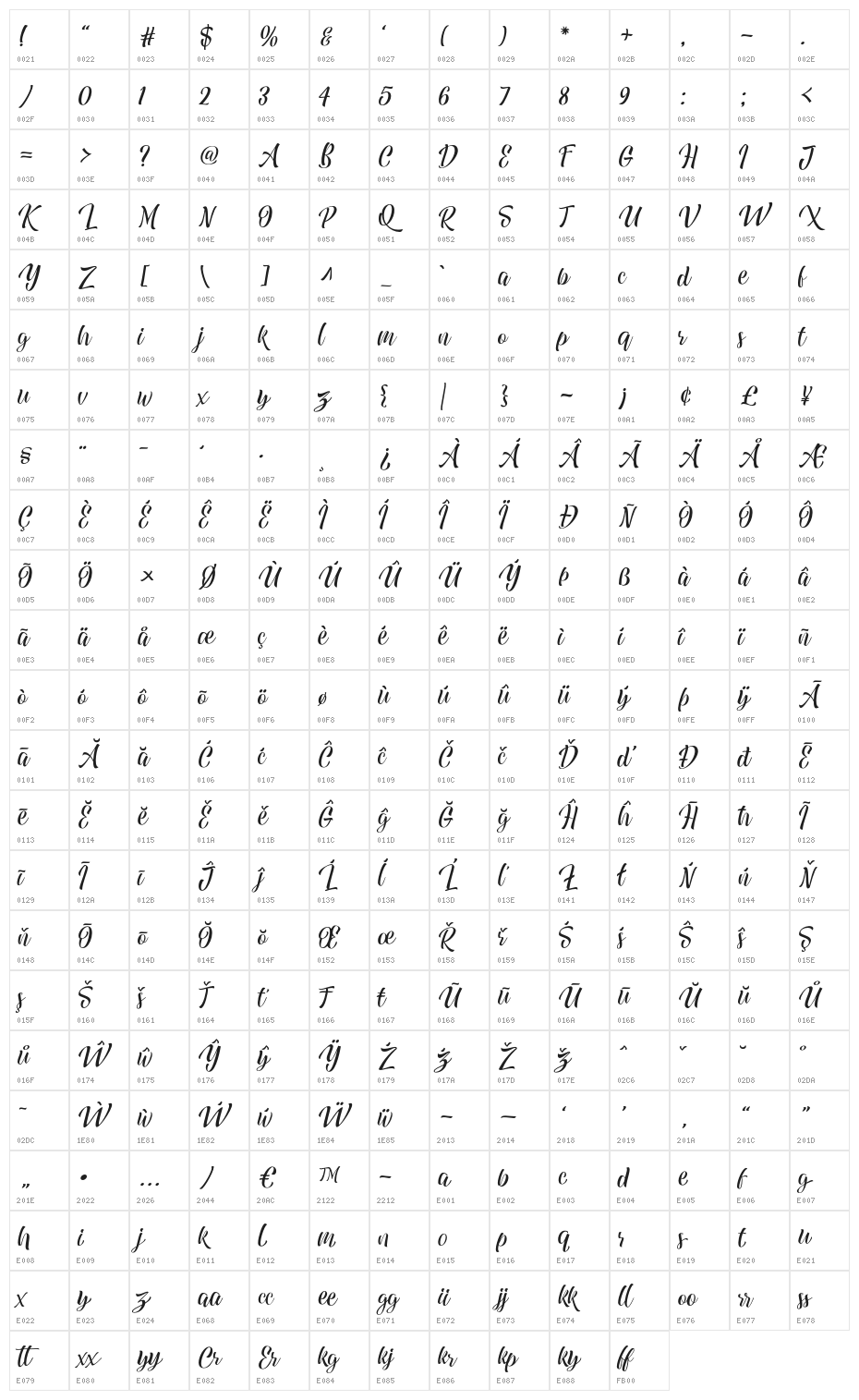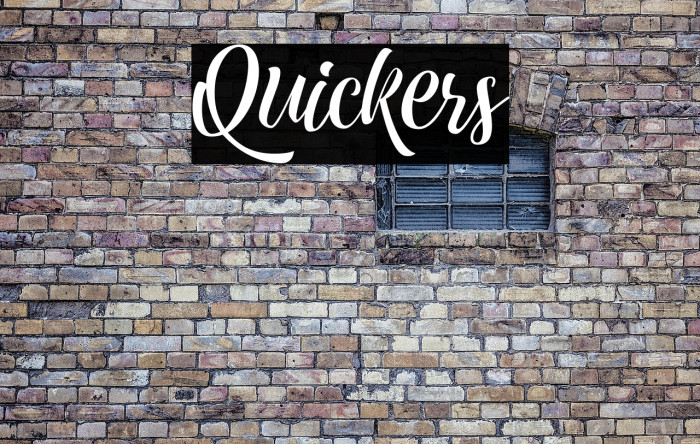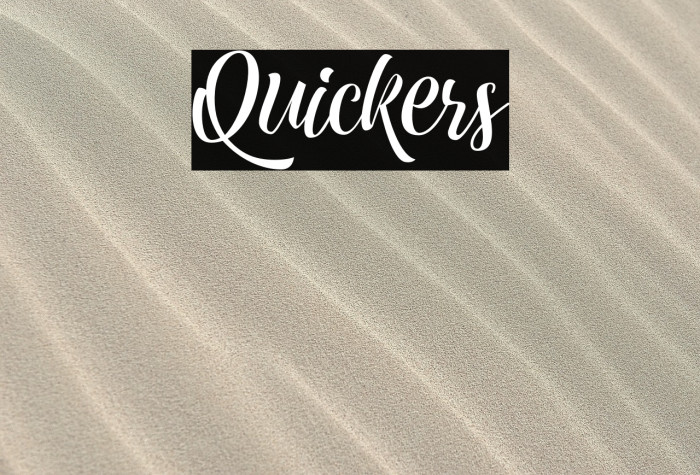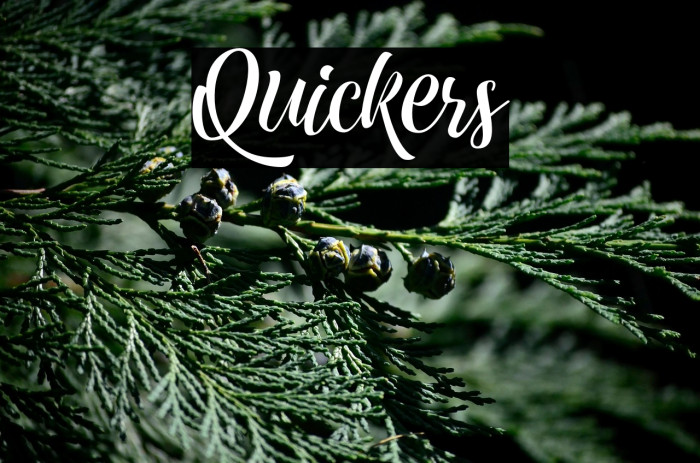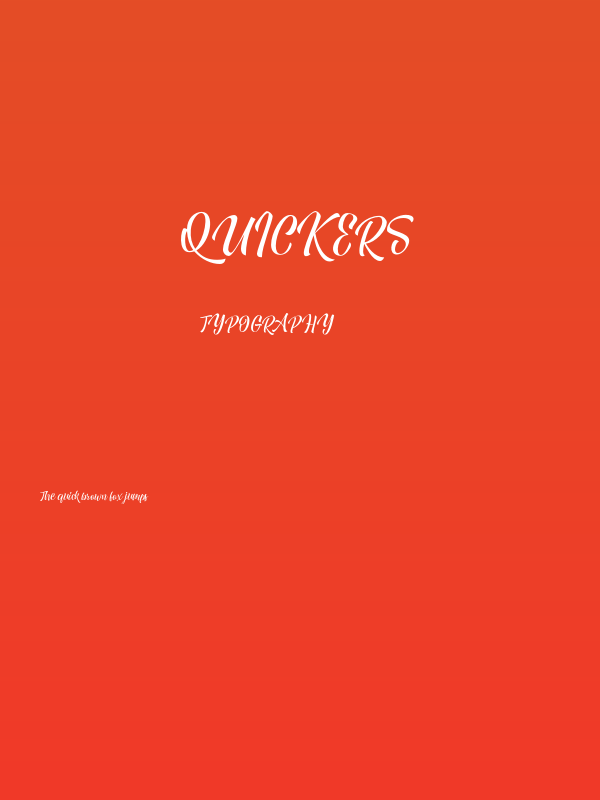
Quickers Font
Quickers Description
This font exudes a dynamic and elegant script style, characterized by its fluid, cursive strokes and a sense of movement. The uppercase letters are bold and sweeping, with a graceful flair that adds a touch of sophistication. The lowercase letters maintain a consistent flow, complementing the uppercase with their rounded forms and smooth connections. Numbers and special characters are designed to match the overall aesthetic, ensuring a cohesive look across all text elements. The font's design is both decorative and legible, making it suitable for a variety of creative applications.
| Overall Style | Elegant, Decorative |
| Use Case | Logos, Invitations, Decorative text |
| Proposed Projects | Ideal for wedding invitations, greeting cards, branding, and logo design. |